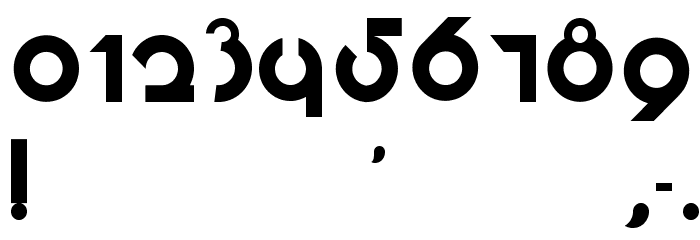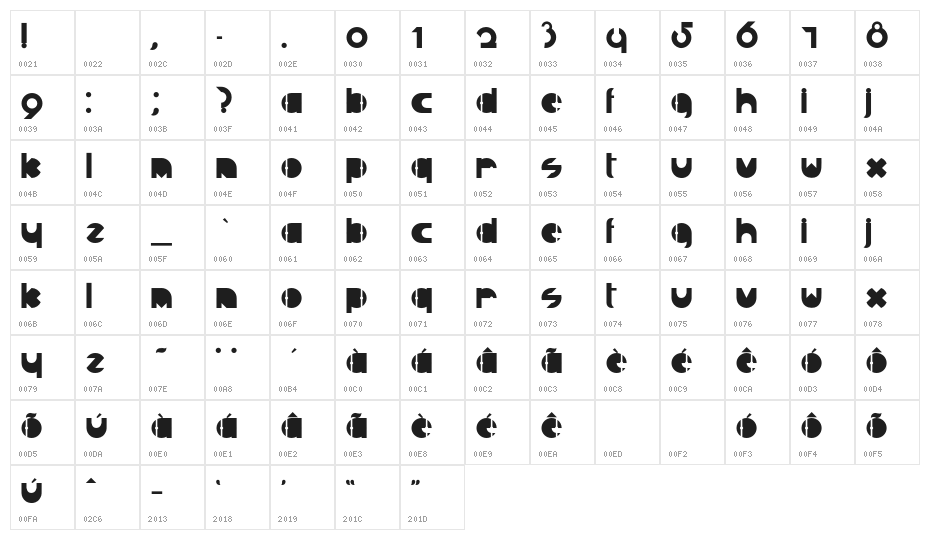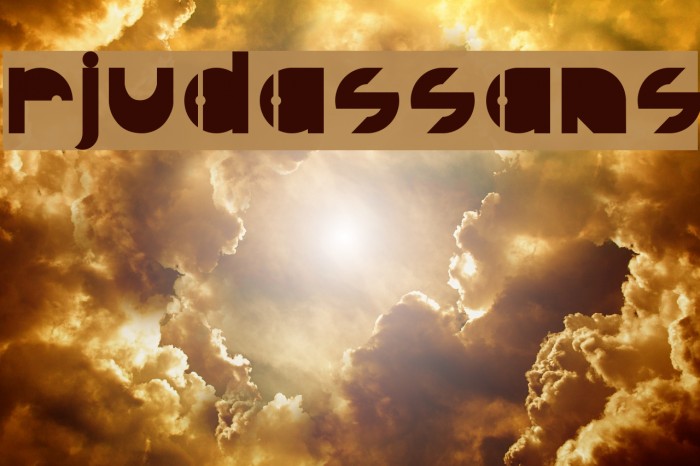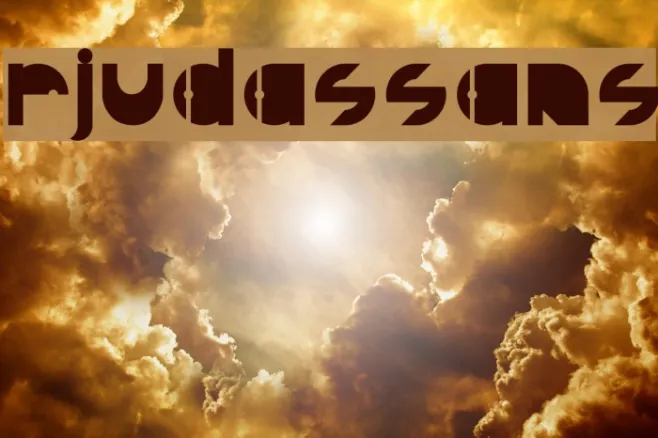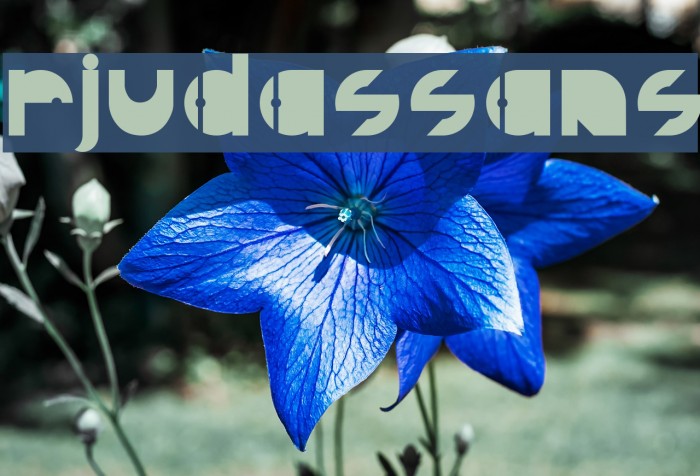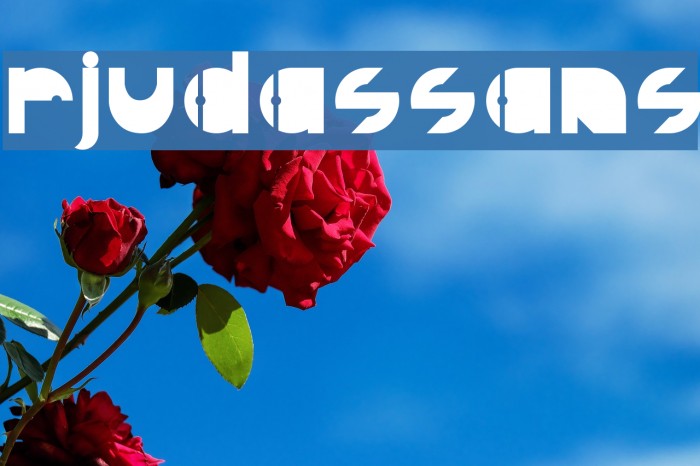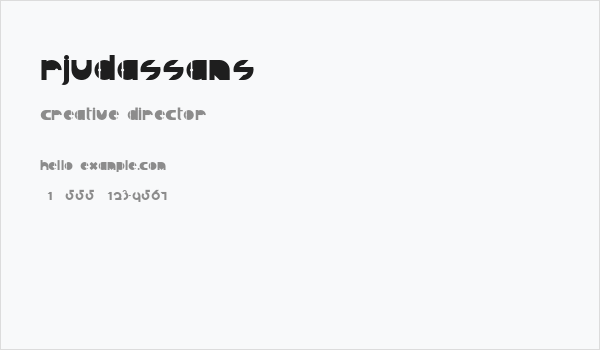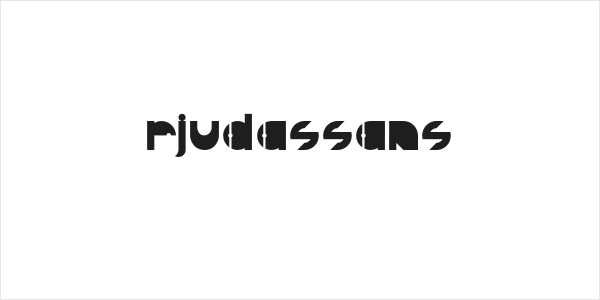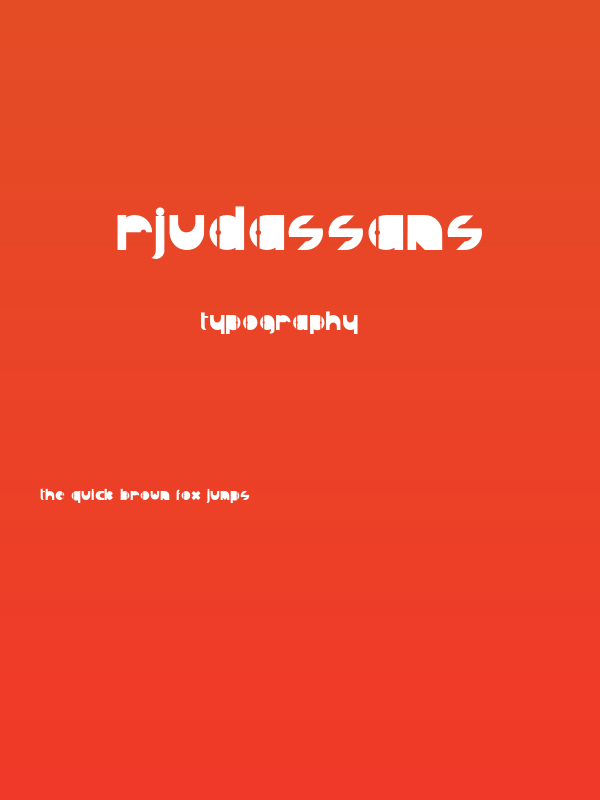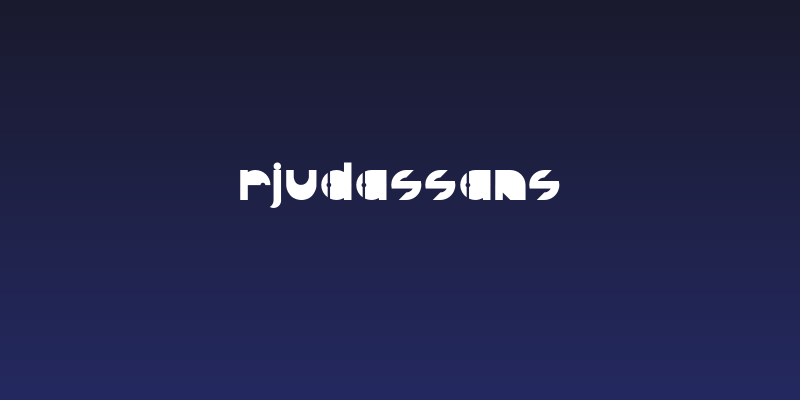
RJudasSans Font
RJudasSans Description
This font features a bold and geometric design with a distinctive modern flair. The characters are constructed with solid, thick strokes and incorporate unique cut-out elements that create a sense of movement and dynamism. The rounded edges and symmetrical shapes give it a futuristic and innovative appearance. Its boldness makes it stand out, while the geometric precision adds a layer of sophistication. The font maintains a consistent weight throughout, ensuring readability despite its decorative nature. The special characters and numbers follow the same design principles, ensuring uniformity across all glyphs.
| Proposed Projects | Ideal for branding, logos, posters, and any project requiring a modern and eye-catching typeface. |